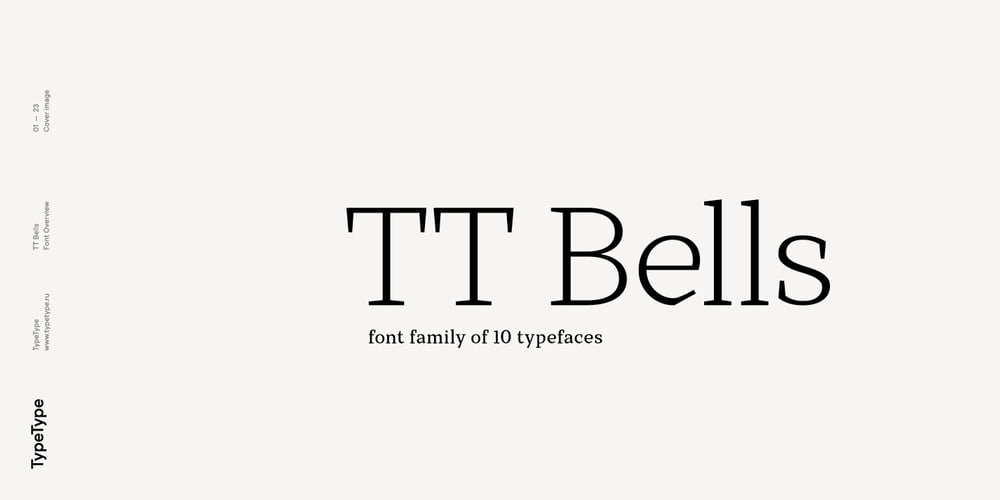
TT Bells Font Family was designed by Ivan Gladkikh, TypeType Team and published by TypeType. TT Bells contains 10 styles and family package options. TT Bells useful links:Specimen PDF | Graphic presentation | Customization optionsAbout TT Bells: TT Bells combines the elegant softness of antiqua with a complex and daring temper reflected in straight stroke terminals and arrowheaded serifs. The family is based on broad nib, which was typically used for old style fonts and creates these hallmark terminals and serifs. We’ve taken the best from old style fonts created before the digital age and added sharp and contemporary geometric shapes to the traditional style. That’s how TT Bells refers the spectators and font enthusiasts to the origins and, at the same time, reminds us that we live in the digital era when geometry and screens rule the world. TT Bells is suited for different types of text–from the shortest headings to large text arrays. When the font size is decreased, the boldness and sharpness of the font soften, it becomes more classic. The font family is created according to the traditional TypeType formula (Thin, Light, Regular, Bold, Black & Italics).FOLLOW US:Instagram | Facebook | WebsiteTT Bells OpenType features: tnum, onum, pnum, numr, dnom, frac, case, ordn, subs, sups. TT Bells language support: Acehnese, Afar, Albanian, Alsatian, Aragonese, Arumanian, Asu, Aymara, Banjar, Basque, Belarusian (cyr), Bemba, Bena, Betawi, Bislama, Boholano, Bosnian (cyr), Bosnian (lat), Breton, Bulgarian (cyr), Cebuano, Chamorro, Chiga, Colognian, Cornish, Corsican, Cree, Croatian, Czech, Danish, Embu, English, Erzya, Estonian, Faroese, Fijian, Filipino, Finnish, French, Friulian, Gaelic, Gagauz (lat), Galician, German, Gusii, Haitian Creole, Hawaiian, Hiri Motu, Hungarian, Icelandic, Ilocano, Indonesian, Innu-aimun, Interlingua, Irish, Italian, Javanese, Judaeo-Spanish, Kalenjin, Karachay-Balkar (lat), Karaim (lat), Karakalpak (lat), Kashubian, Khasi, Khvarshi, Kinyarwanda, Kirundi, Kongo, Kumyk, Kurdish (lat), Ladin, Latvian, Laz, Leonese, Lithuanian, Luganda, Luo, Luxembourgish, Luyia, Macedonian, Machame, Makhuwa-Meetto, Makonde, Malay, Manx, Maori, Mauritian Creole, Minangkabau, Montenegrin (lat), Mordvin-moksha, Morisyen, Nahuatl, Nauruan, Ndebele, Nias, Nogai, Norwegian, Nyankole, Occitan, Oromo, Palauan, Polish, Portuguese, Quechua, Rheto-Romance, Rohingya, Romansh, Rombo, Rundi, Russian, Rusyn, Rwa, Salar, Samburu, Samoan, Sango, Sangu, Scots, Sena, Serbian (cyr), Serbian (lat), Seychellois Creole, Shambala, Shona, Slovak, Slovenian, Soga, Somali, Sorbian, Sotho, Spanish, Sundanese, Swahili, Swazi, Swedish, Swiss German, Tagalog, Tahitian, Taita, Tatar, Tetum, Tok Pisin, Tongan, Tsonga, Tswana, Turkish, Turkmen (lat), Ukrainian, Uyghur, Vepsian, Volapük, Võro, Vunjo, Xhosa, Zaza, Zulu.